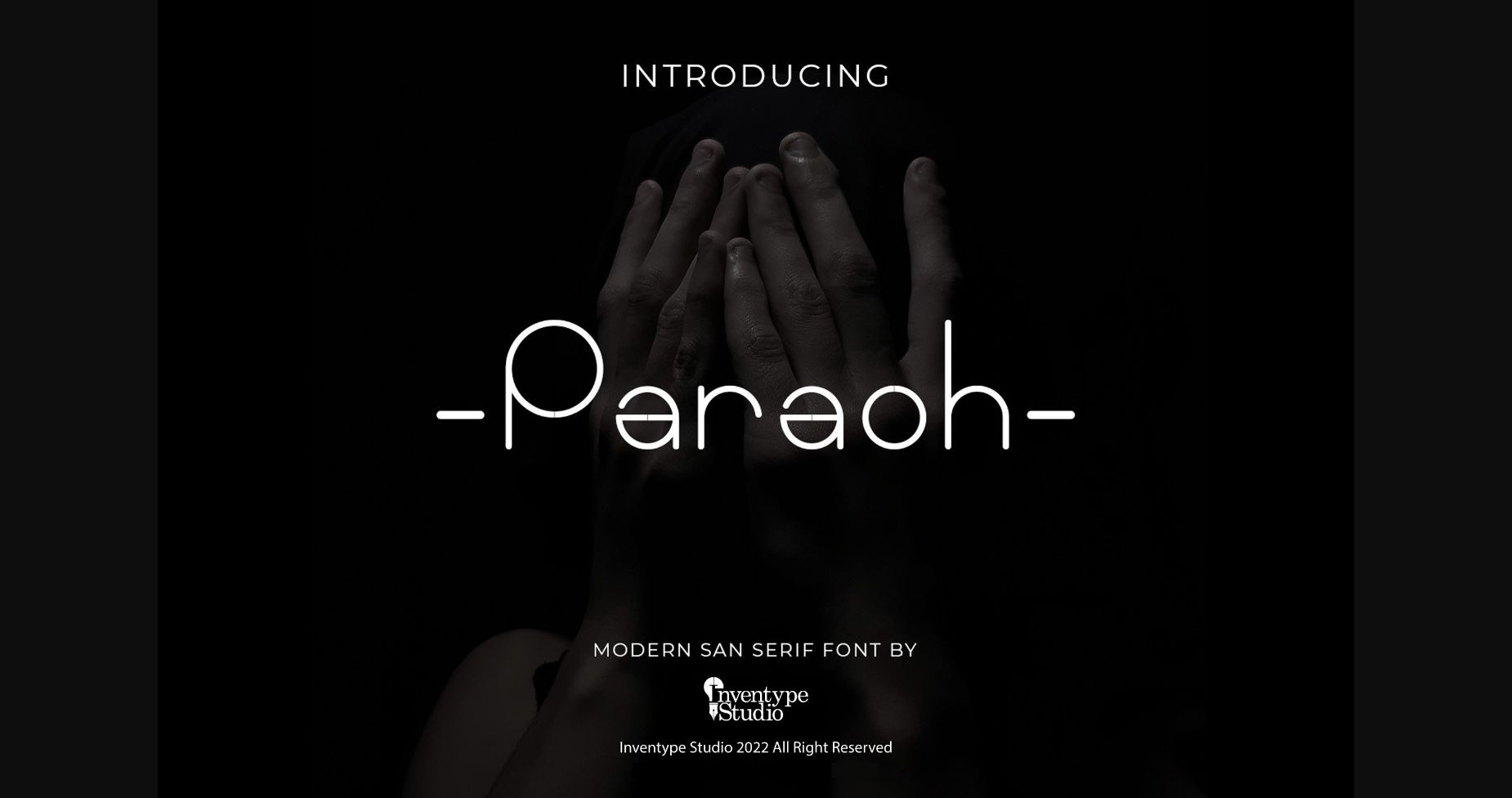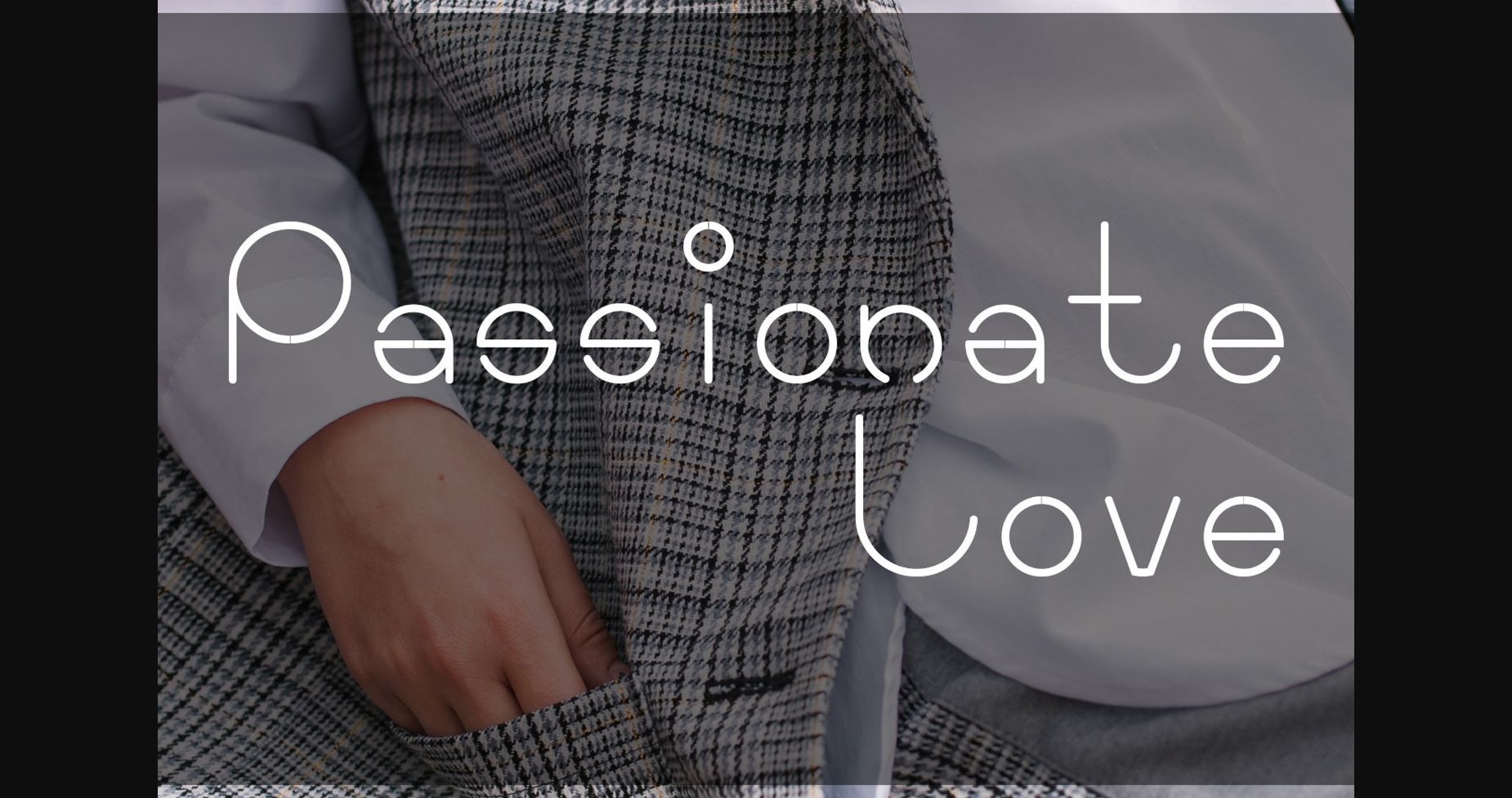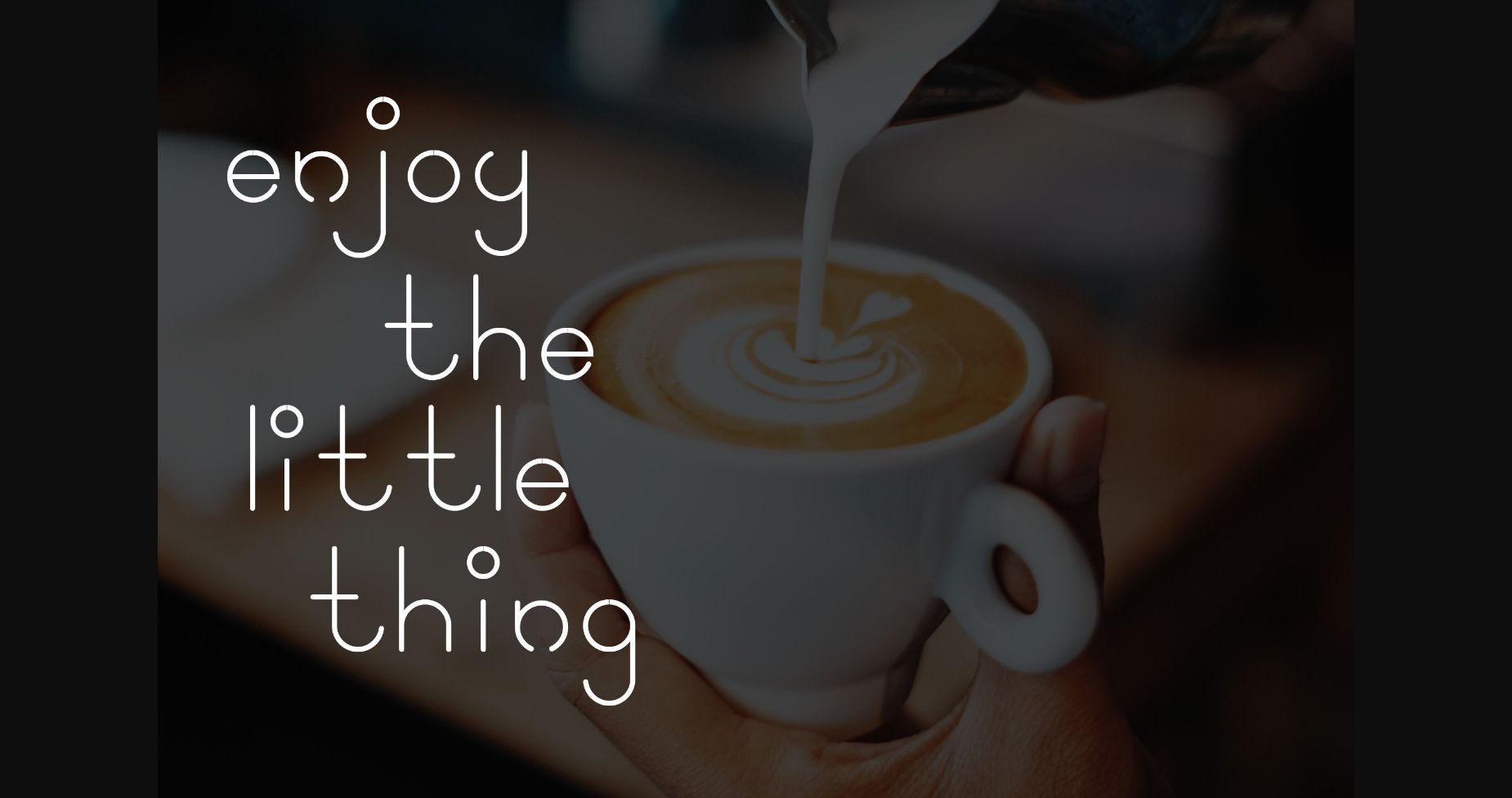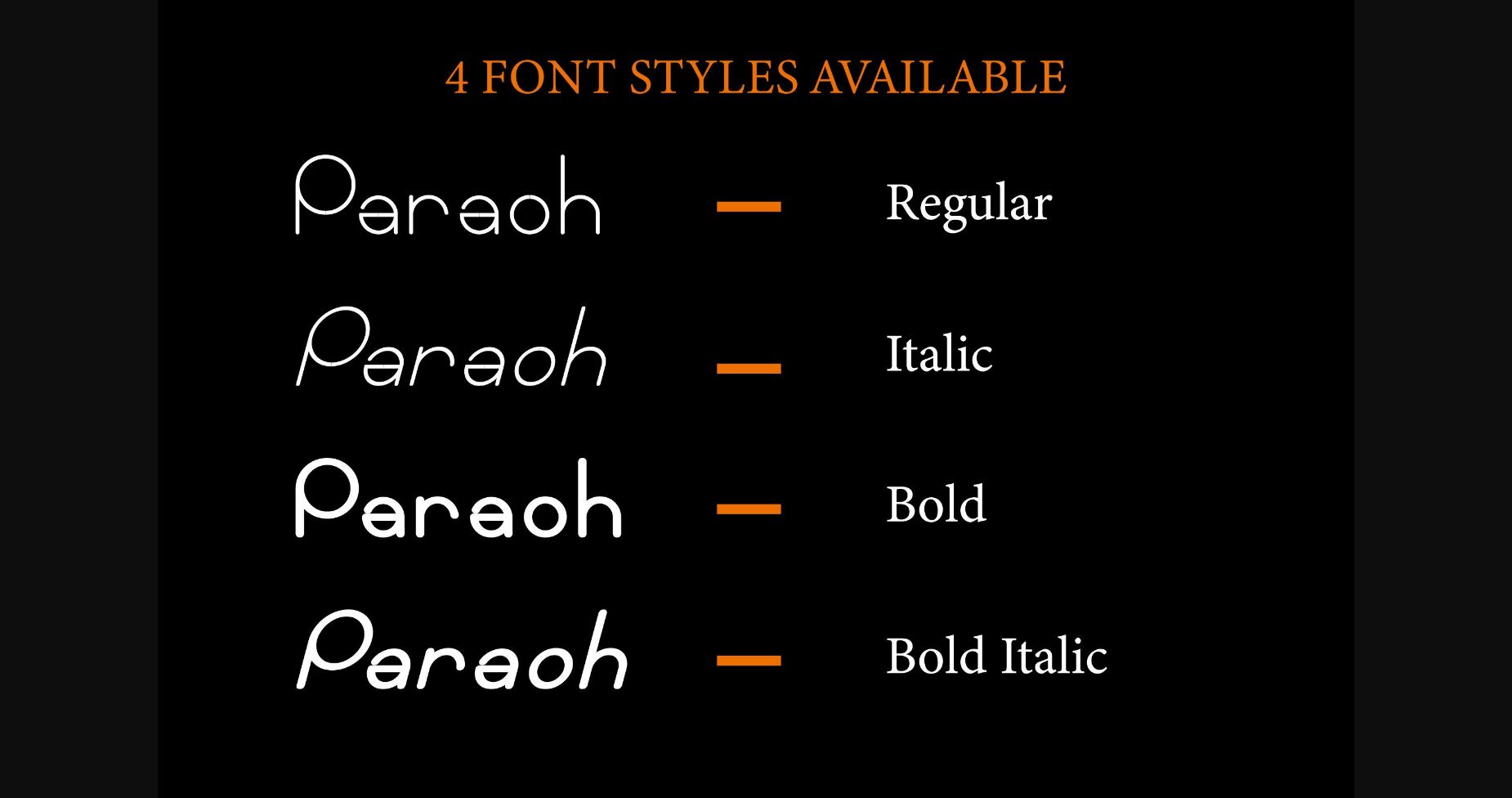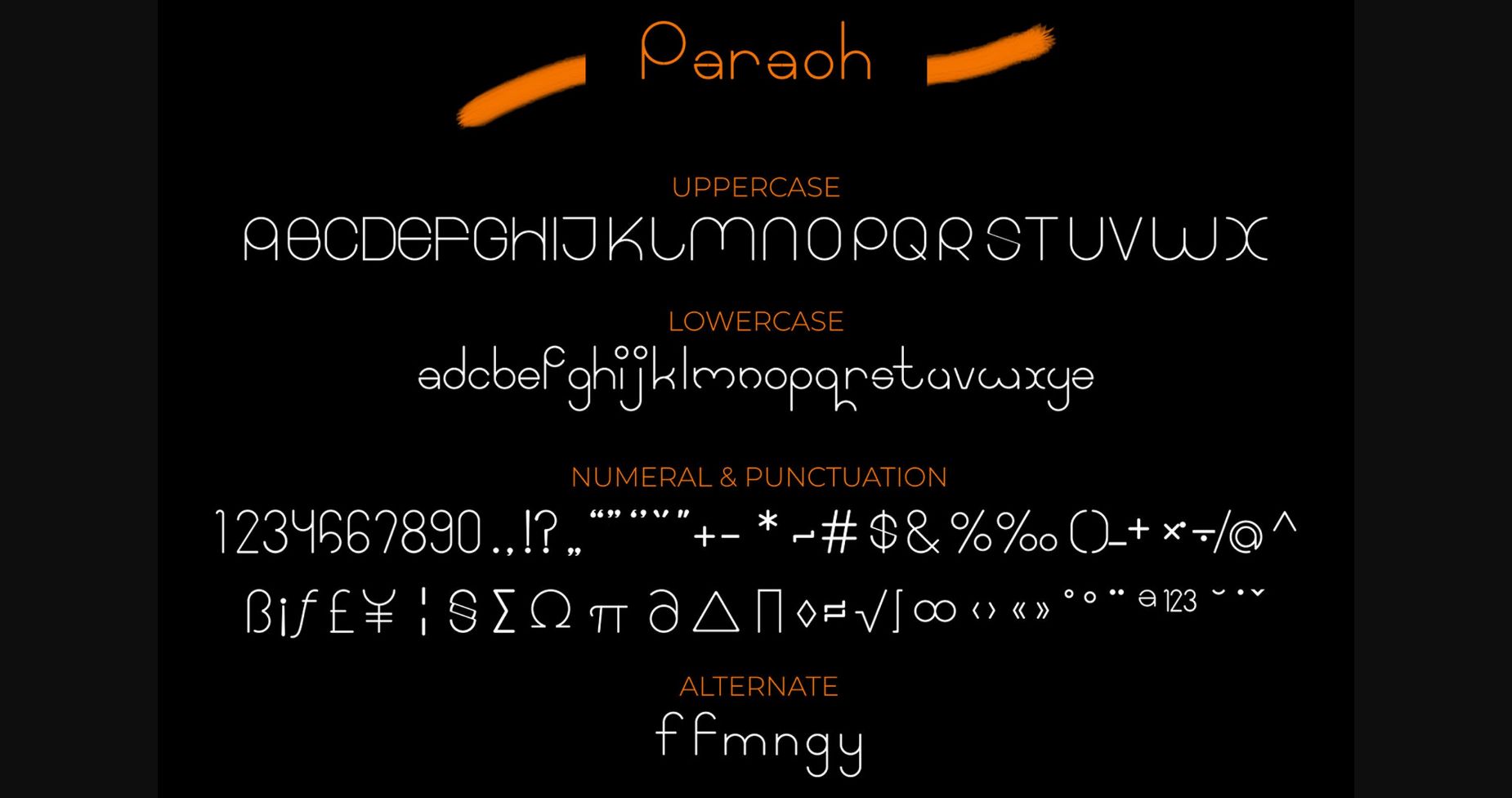
Paraoh Font
About Paraoh Font
Paraoh is a cool and unique sans serif font, inspired by the old Indonesian word meaning a traditional boat used for catching fish. It looks stunning on wedding invitations, thank you cards, quotes, greeting cards, logos, business cards, and every other design which needs a classy touch.